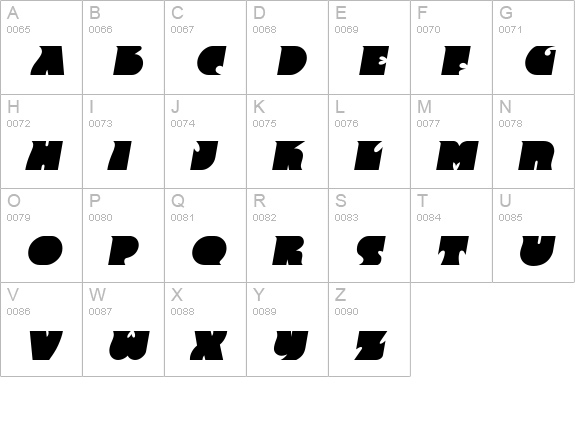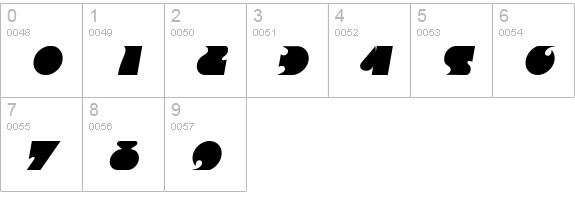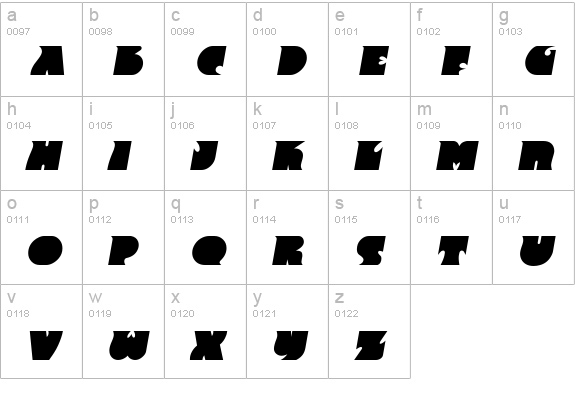
The F820-Deco-BoldItalic font is a modern and stylish typeface that exudes sophistication and elegance. Its bold and italic design adds a touch of flair to any project, making it perfect for titles, headlines, and other eye-catching text. The distinctive geometric shapes and clean lines of this font give it a unique and contemporary look that will make your designs stand out. What's even better is that the F820-Deco-BoldItalic font is available for free download at FontsMarket.com. This means you can easily incorporate this stunning font into your projects without having to worry about any additional costs. Whether you're working on a website, a poster, a logo, or any other design project, the F820-Deco-BoldItalic font is sure to make a statement and leave a lasting impression. Download it today and take your designs to the next level!